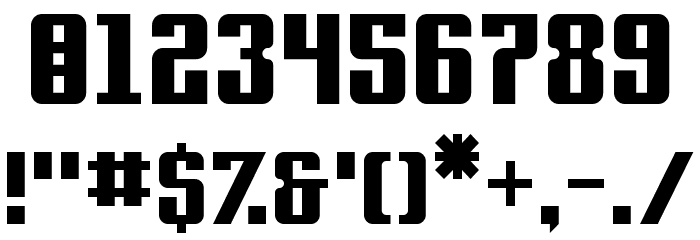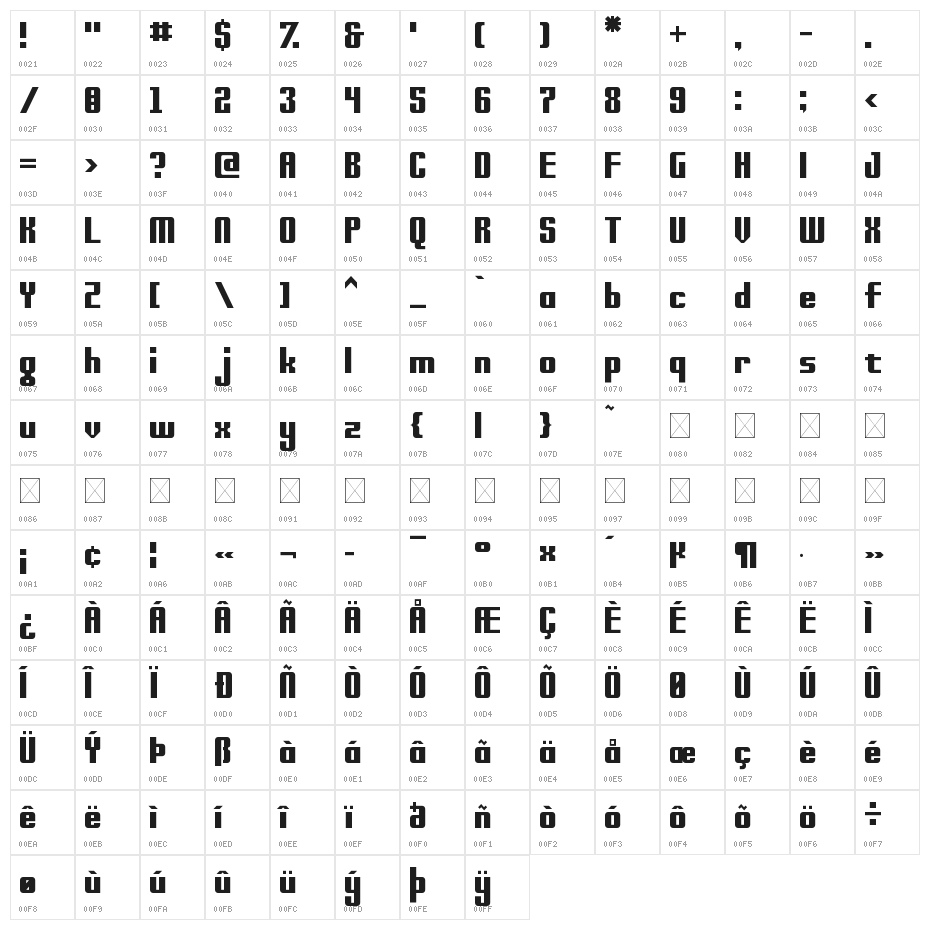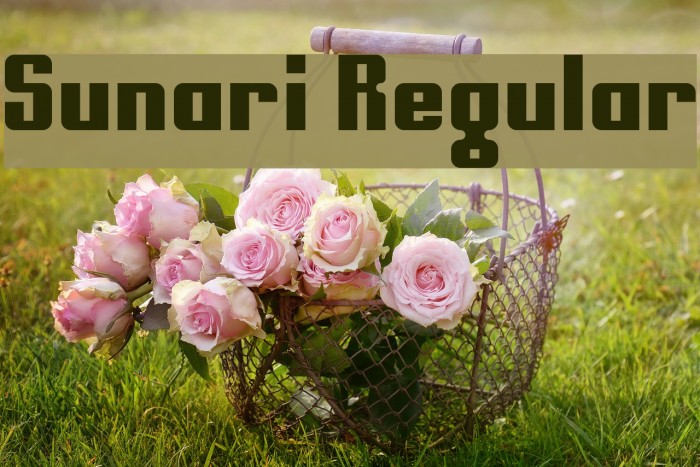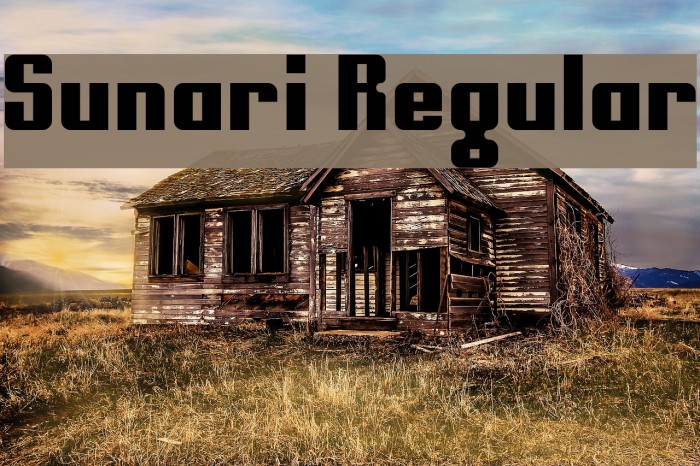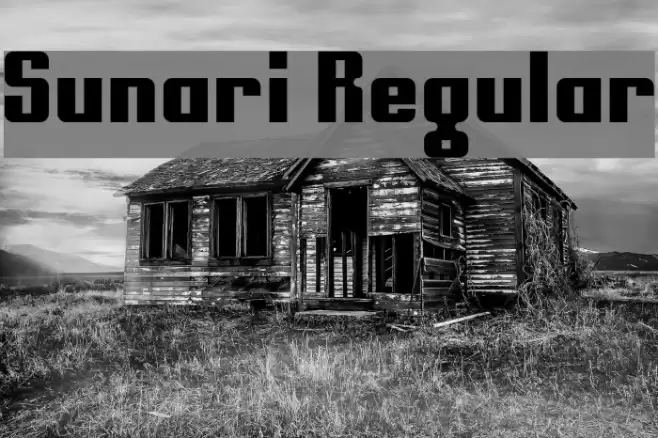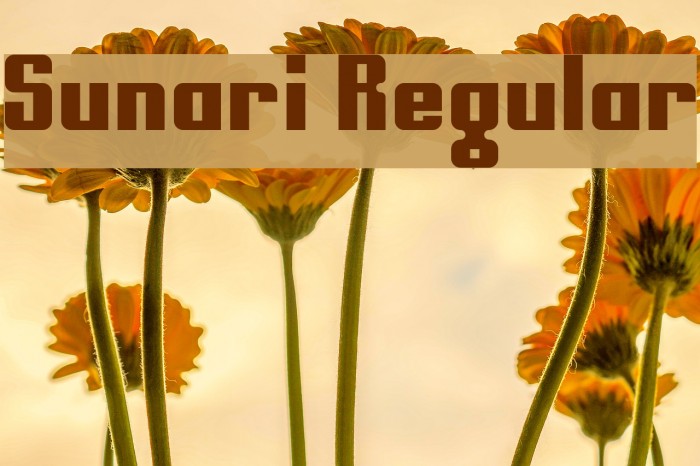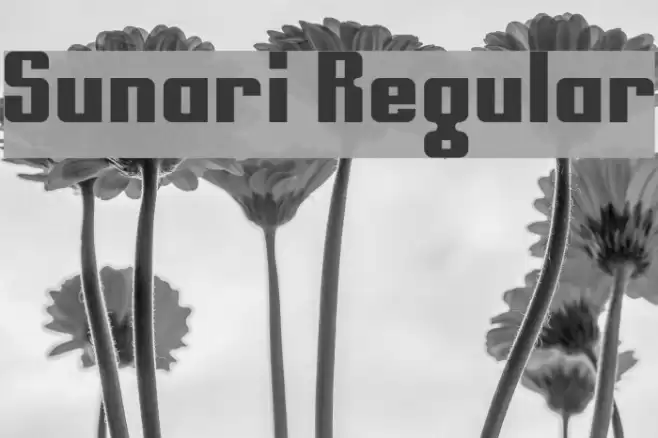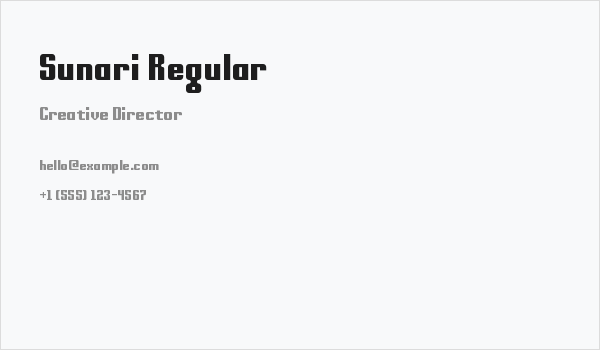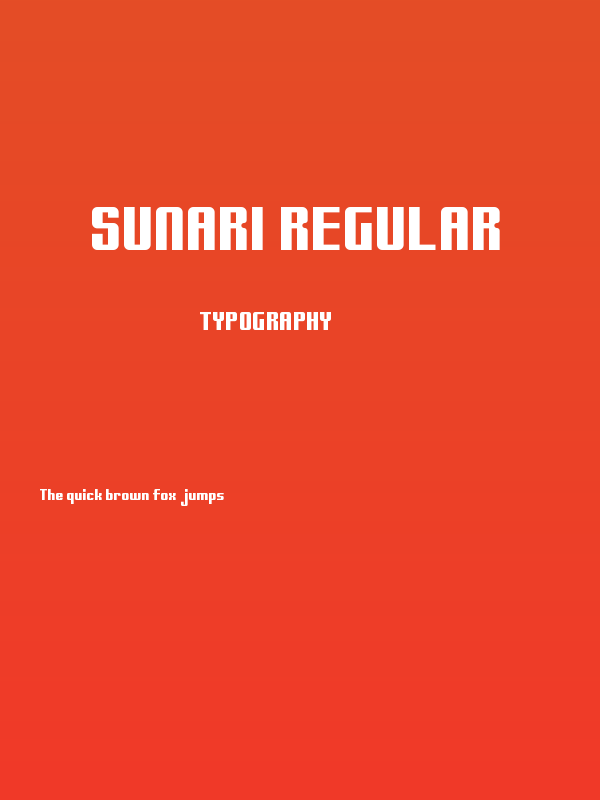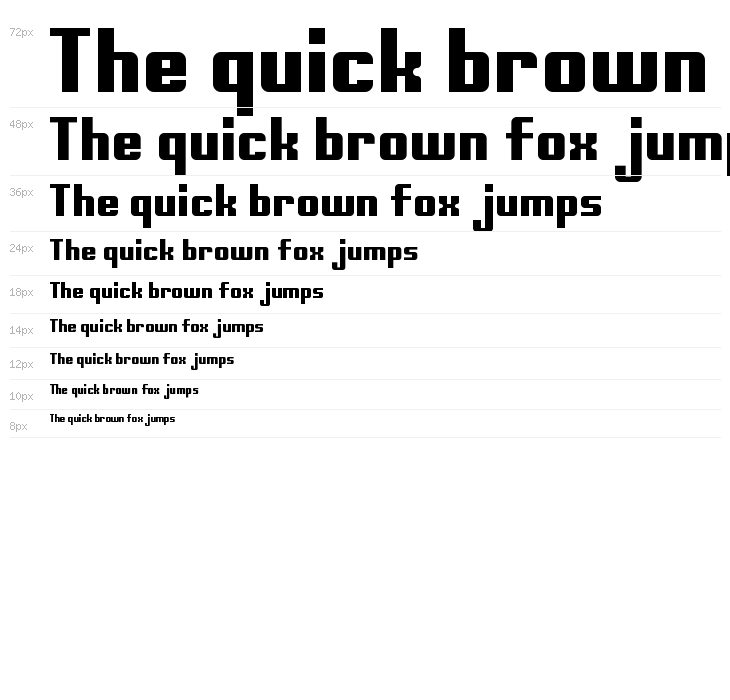
Sunari Regular Font
Sunari Regular Description
This font features a bold and geometric design with strong, block-like characters. The uppercase letters are uniform in height and width, creating a cohesive and structured appearance. The lowercase letters maintain the same boldness, with some unique touches such as the curved tail on the 'g' and the distinctive shape of the 'a'. Numbers are equally bold and consistent, ensuring readability. The special characters are designed to match the overall style, with sharp angles and a modern aesthetic. This font is perfect for making a strong visual impact.
| Proposed Projects | Ideal for branding, posters, headlines, and any project requiring a strong visual impact. |